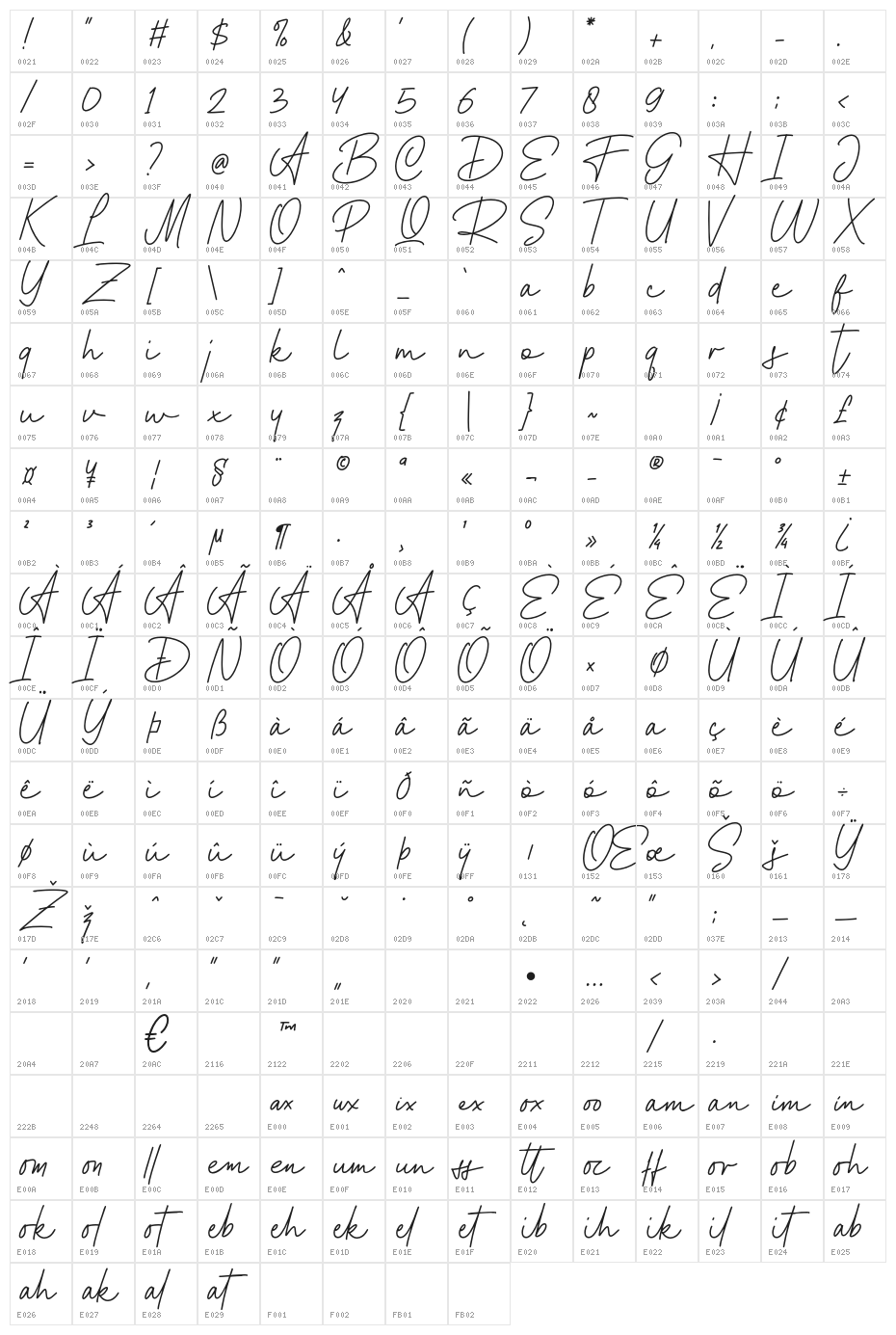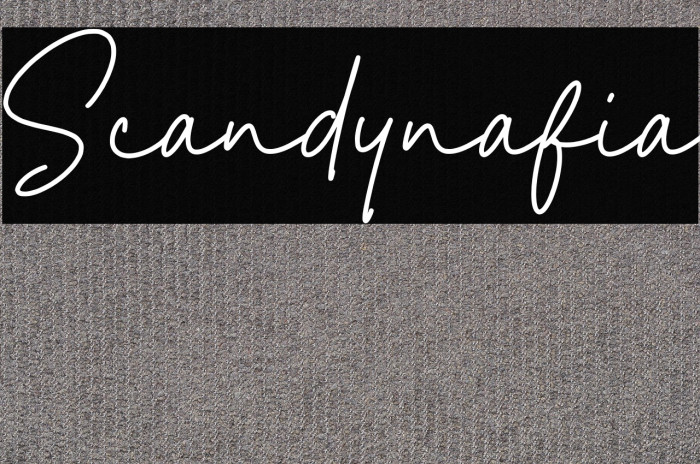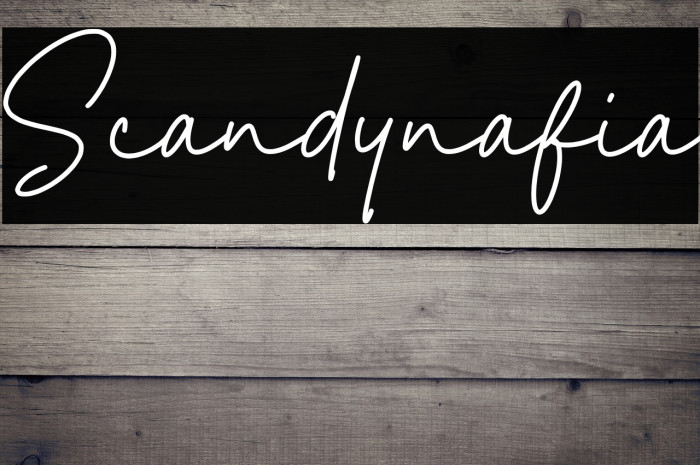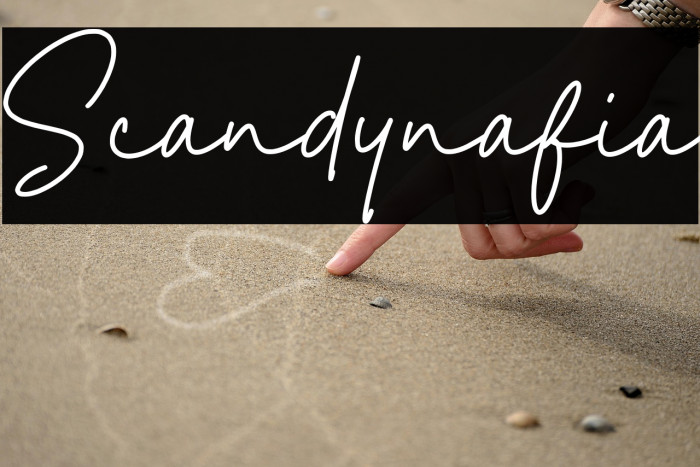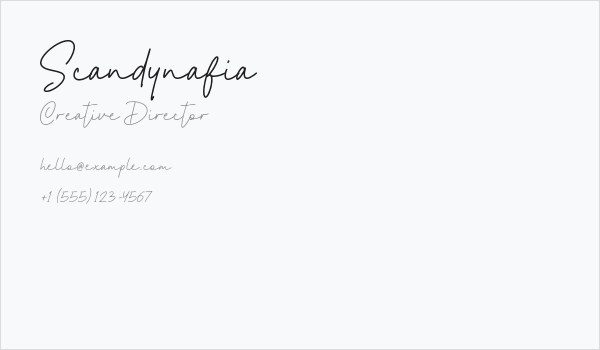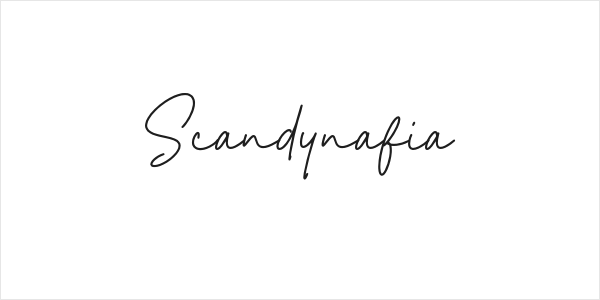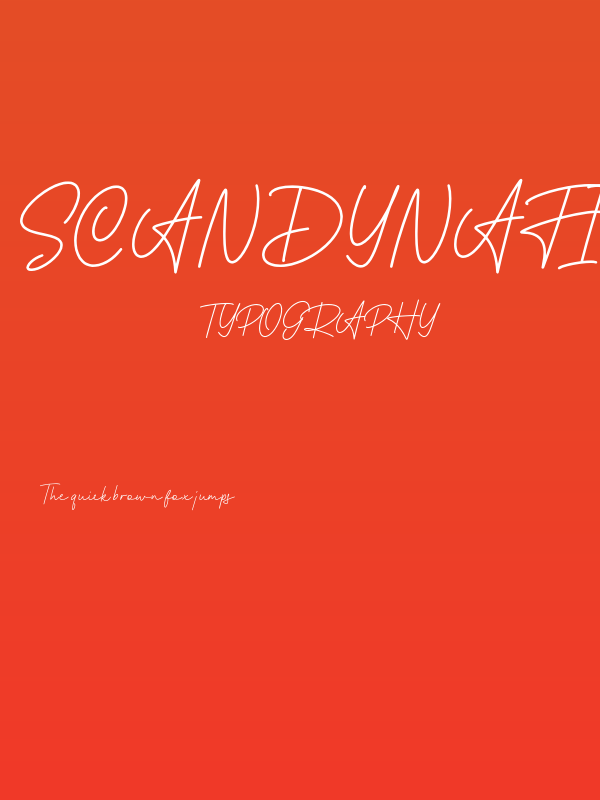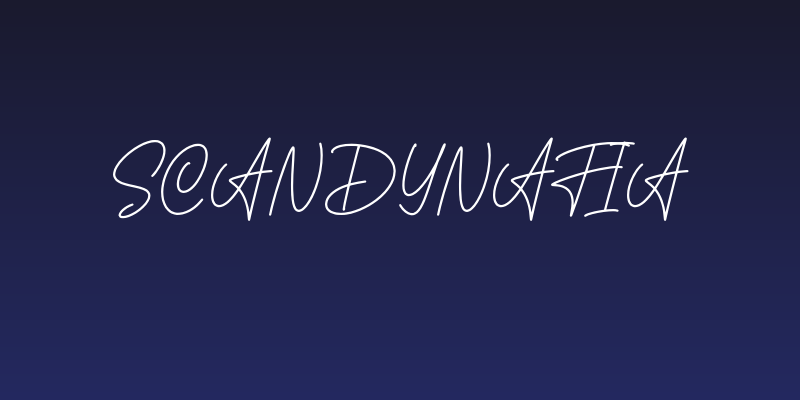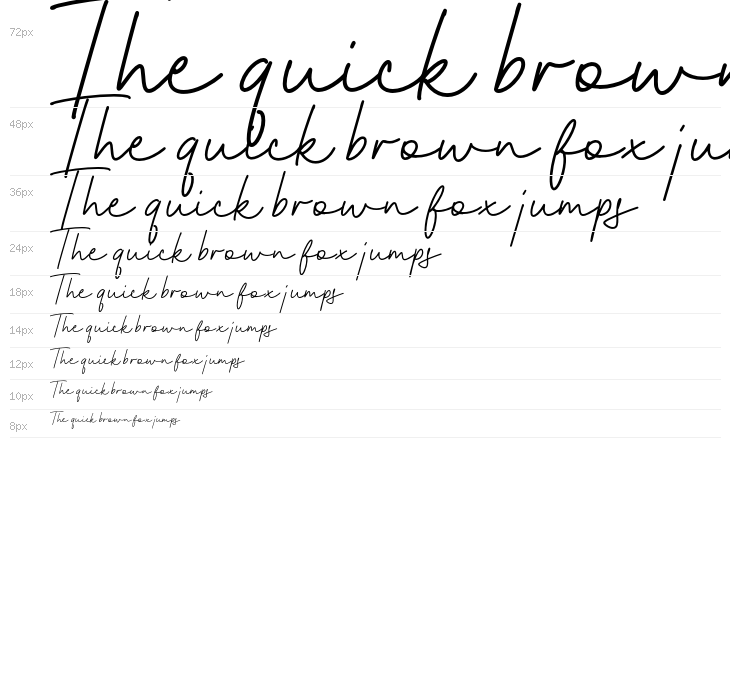
Scandynafia Font
Scandynafia Description
This font features a dynamic and fluid script style, characterized by its elegant and flowing letterforms. The uppercase letters exhibit a sophisticated flair with smooth curves and a slight slant, while the lowercase letters maintain a consistent rhythm and natural handwriting appeal. The numerals are clear and legible, complementing the overall aesthetic. Special characters are thoughtfully designed to match the script's graceful nature. The font's organic feel makes it suitable for projects that require a personal touch.
| Overall Style | Elegant, Handwritten |
| Proposed Projects | Ideal for wedding invitations, greeting cards, personal branding, and artistic projects that require a personal and elegant touch. |